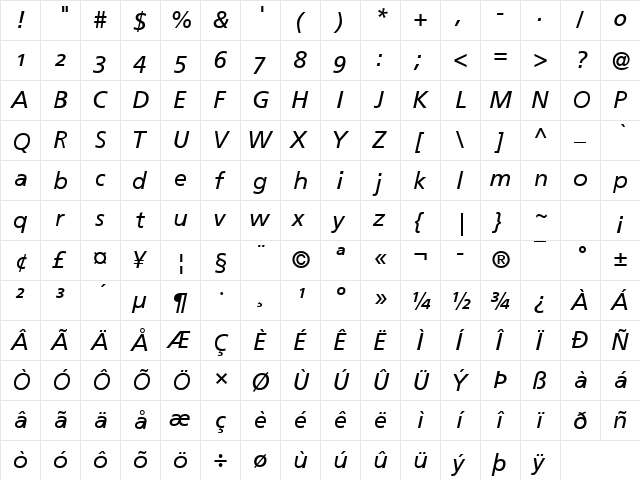
Frutiger Linotype Italic
| Foundry | LINOTYPE-HELL AG |
| Designer | Adrian Frutiger |
Design Context for Frutiger Linotype Typeface
Frutiger Linotype takes a measured approach to typography — its balanced proportions and neutral character make it a reliable workhorse for both digital and print work. The dynamic lean of this cut emphasises speed and emphasis in any layout.